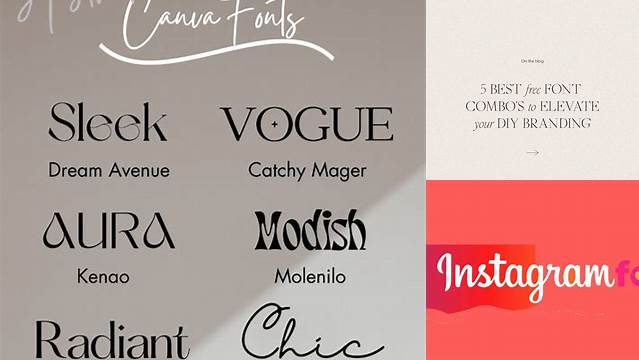
Classy Fonts For Instagram: Elevate Your Aesthetic
Choosing the right fonts can significantly elevate your Instagram presence. In this article, we’ll explore a variety of classy fonts perfect for enhancing your Instagram aesthetic. Let's dive in, guys!
1. Serif Fonts for an Elegant Instagram Look
When we're talking about an elegant Instagram feed, serif fonts are your go-to guys. These fonts, characterized by their small decorative strokes or 'serifs' at the end of each character, evoke a sense of tradition, sophistication, and timelessness. Using serif fonts isn't just about readability; it's about making a statement. For example, think of fonts like Times New Roman or Georgia. They create an immediate impression of class and professionalism. A well-chosen serif font can set the tone for your entire profile, signaling to your audience that you value quality and attention to detail.
Incorporating serif fonts into your Instagram content can be incredibly versatile. Use them in your profile bio to convey authority and trustworthiness. Imagine a fashion brand using a refined serif font to present its brand story. Or maybe a consultant using it to highlight key credentials. They are perfect for overlaying on images to add a touch of elegance to your posts. When you're designing stories, try using a serif font for headlines or to emphasize crucial information. By doing so, you're not just conveying text; you're conveying a feeling of subtlety and refinement that resonates with your followers. Experiment with different weights and sizes to find the perfect balance that complements your visual content and reinforces your brand's identity.
2. Sans-Serif Fonts for a Modern Instagram Vibe
If you're aiming for a modern and clean Instagram aesthetic, sans-serif fonts are definitely your best bet. Unlike serif fonts, sans-serif fonts lack those decorative strokes, resulting in a sleeker, more contemporary appearance. Think of fonts like Helvetica, Arial, or Open Sans – they're straightforward, legible, and incredibly versatile. Using sans-serif fonts can give your profile a fresh and approachable vibe, making it ideal for brands and influencers who want to connect with a younger or more tech-savvy audience.
Integrating sans-serif fonts into your Instagram content is super easy. Use them in your captions to keep your message clear and concise. A sans-serif font can ensure that your text is easy to read and visually appealing, whether you're sharing a personal anecdote or promoting a product. In your stories, opt for sans-serif fonts to create a sense of immediacy and modernity. The clean lines of these fonts work well with dynamic visuals, making your stories pop and capturing your followers' attention. Moreover, sans-serif fonts are fantastic for creating graphics and quotes. Their simplicity ensures that your message stands out without being overshadowed by unnecessary ornamentation. By thoughtfully incorporating sans-serif fonts, you can create a cohesive and contemporary Instagram presence that resonates with your target audience.
3. Script Fonts for a Touch of Instagram Flair
For adding a touch of personality and flair to your Instagram, script fonts are the way to go. These fonts mimic the fluidity of handwriting and can range from elegant and formal to playful and casual. Script fonts are perfect for highlighting special occasions, adding a personal touch to your content, or creating a sense of intimacy with your audience. Just imagine fonts like Brush Script or Pacifico. These give an immediate feeling of being personal and special.
Think about using script fonts to announce a giveaway, share a heartfelt message, or promote a handmade product. However, it's important to use script fonts sparingly. Overusing them can make your content look cluttered or difficult to read. Instead, use them to emphasize key words or phrases and to add a subtle touch of elegance to your overall design. Also, remember to choose script fonts that complement your brand's aesthetic. A formal script font might be perfect for a luxury brand, while a casual script font might be better suited for a lifestyle blogger. By carefully selecting and incorporating script fonts, you can infuse your Instagram content with personality and charm, making it more engaging and memorable for your followers.
4. Display Fonts to Make Your Instagram Pop
When you really want to make your Instagram pop, display fonts are your secret weapon, guys. These fonts are designed to be eye-catching and attention-grabbing, perfect for headlines, logos, and other design elements where you want to make a bold statement. Display fonts come in a wide variety of styles, from retro and funky to modern and abstract, allowing you to express your brand's unique personality and stand out from the crowd.
Consider using display fonts to announce a new product launch, promote a special event, or create eye-catching graphics for your Instagram feed. A well-chosen display font can instantly grab your followers' attention and communicate your message in a memorable way. However, like script fonts, it's important to use display fonts sparingly. Overusing them can make your content look cluttered or overwhelming. Instead, use them strategically to highlight key messages and to create a sense of visual interest. Also, be sure to choose display fonts that are legible and easy to read, even at smaller sizes. The goal is to attract attention, not to confuse your audience. By carefully selecting and incorporating display fonts, you can create a visually stunning Instagram presence that captures your followers' imagination and leaves a lasting impression.
5. Combining Fonts for a Dynamic Instagram Feed
To create a truly dynamic and visually appealing Instagram feed, try combining different fonts. This technique can add depth and interest to your content, helping you to create a unique and memorable brand identity. The key to combining fonts successfully is to choose fonts that complement each other without clashing. For example, you might pair a serif font with a sans-serif font, or a script font with a more neutral font.
Experiment with different combinations to see what works best for your brand. You can use one font for headlines, another for body text, and a third for captions or call-to-actions. Just be sure to maintain a consistent visual hierarchy, using font size, weight, and color to guide your followers' eyes and to emphasize key messages. Also, don't be afraid to break the rules and to try something unexpected. The best font combinations are often those that defy convention and reflect your brand's unique personality. By mastering the art of font pairing, you can create an Instagram feed that is both visually stunning and highly effective at communicating your message.
6. Font Psychology and Your Instagram Brand
Ever thought about how the fonts you pick can actually affect how people see your brand? It's all about font psychology, guys! Different fonts evoke different emotions and associations, so choosing the right ones can help you to communicate your brand's personality and values. For example, serif fonts often convey a sense of tradition, authority, and trustworthiness, while sans-serif fonts tend to be associated with modernity, simplicity, and clarity. Script fonts can evoke feelings of elegance, creativity, and personalization, while display fonts are all about grabbing attention and making a statement.
Consider what emotions and associations you want your brand to evoke, and then choose fonts that align with those goals. If you want to be seen as a reliable and established brand, a serif font might be a good choice. If you want to project a more modern and innovative image, a sans-serif font might be better. Or, if you want to add a touch of personality and flair, a script font could be just what you need. By understanding the psychology of fonts, you can make informed decisions about your Instagram branding and create a cohesive and compelling visual identity that resonates with your target audience.
7. Free Font Resources for Instagram Graphics
Finding the perfect fonts for your Instagram graphics doesn't have to break the bank. There are tons of free font resources available online that offer a wide variety of high-quality fonts for commercial and personal use. Websites like Google Fonts, Font Squirrel, and DaFont are treasure troves of free fonts, with thousands of options to choose from. These sites allow you to browse fonts by category, style, and license, making it easy to find the perfect font for your project.
Before you download a font, be sure to check the license to make sure that it's okay to use it for your intended purpose. Some fonts are free for personal use only, while others are free for commercial use as well. Also, be aware that the quality of free fonts can vary. Some free fonts are professionally designed and meticulously crafted, while others are amateurish or poorly made. Take the time to preview the font and to test it out in your designs before you commit to using it. With a little bit of research, you can find amazing free fonts that will elevate your Instagram graphics without costing you a dime.
8. Paid Font Options for Professional Instagram Branding
If you're serious about your Instagram branding and want to invest in premium fonts, there are plenty of paid options available. Paid fonts typically offer higher quality, more features, and broader licensing options than free fonts. Websites like MyFonts, Adobe Fonts, and Creative Market are great places to find professional-grade fonts for your Instagram graphics.
When you're choosing a paid font, consider your budget, your brand's aesthetic, and your specific needs. Paid fonts can range in price from a few dollars to hundreds of dollars, so it's important to set a budget before you start shopping. Also, be sure to choose fonts that align with your brand's personality and values. A professional-grade font can make a big difference in the overall look and feel of your Instagram content, helping you to create a polished and sophisticated brand image.
9. Font Licensing: What You Need to Know for Instagram
Before you use a font in your Instagram graphics, it's important to understand font licensing. Font licensing determines how you're allowed to use a font, including whether you can use it for commercial purposes, whether you can embed it in digital files, and whether you can modify it. Failing to comply with font licensing can result in legal penalties, so it's crucial to do your research and to make sure that you're using fonts legally.
Most free fonts come with a license that allows you to use them for personal and commercial purposes, but there may be restrictions on how you can use them. Some free fonts, for example, may not allow you to embed them in digital files or to modify them. Paid fonts typically come with more flexible licensing options, but it's still important to read the fine print and to make sure that you understand the terms of the license. When in doubt, it's always best to contact the font designer or foundry and to ask for clarification.
10. Font Size and Readability on Instagram
Choosing the right font is only half the battle. You also need to consider font size and readability. If your font is too small or too difficult to read, your followers will have a hard time engaging with your content. Aim for a font size that is large enough to be easily read on a mobile device, but not so large that it overwhelms the design. Also, choose fonts that are legible and easy to read, even at smaller sizes. Avoid fonts with overly intricate or decorative designs, as these can be difficult to read on a small screen.
11. Kerning and Leading for Perfect Instagram Typography
Kerning and leading are two important aspects of typography that can significantly impact the readability and aesthetics of your Instagram graphics. Kerning refers to the spacing between individual letters, while leading refers to the spacing between lines of text. Adjusting the kerning and leading can help you to create a more balanced and visually appealing design.
12. Color Contrast for Instagram Font Legibility
Color contrast is essential for ensuring that your Instagram fonts are legible. Choose font colors that contrast strongly with the background color. Dark text on a light background is generally easier to read than light text on a dark background. Avoid using colors that are too similar, as this can make your text difficult to see.
13. Using Fonts to Reflect Your Instagram Brand Personality
The fonts you choose should reflect your Instagram brand personality. If your brand is playful and fun, choose fonts that are whimsical and lighthearted. If your brand is sophisticated and elegant, choose fonts that are refined and classic. The fonts you use should be consistent with your overall brand image and messaging.
14. The Best Fonts for Instagram Stories
When it comes to Instagram Stories, readability and visual appeal are key. Choose fonts that are easy to read on a small screen and that complement the visual content of your story. Sans-serif fonts are often a good choice for Instagram Stories, as they tend to be clean and legible.
15. Fonts to Avoid on Instagram (and Why)
Not all fonts are created equal. Some fonts are simply not well-suited for Instagram. Avoid fonts that are too difficult to read, too distracting, or too overused. Also, be wary of fonts that are poorly designed or that look amateurish.
16. How to Upload Custom Fonts to Instagram
While Instagram has a limited selection of built-in fonts, there are ways to upload custom fonts to the platform. This can allow you to create a truly unique and branded Instagram presence.
17. Font Generators for Creating Unique Instagram Captions
Font generators can be a fun way to add a unique touch to your Instagram captions. These tools allow you to create stylized text using a variety of different fonts and symbols.
18. Matching Fonts to Instagram Filter Aesthetics
Consider how your fonts will look with different Instagram filters. Some fonts may look better with certain filters than others. Experiment with different combinations to find the perfect match.
19. Typography Trends on Instagram to Watch Out For
Typography trends on Instagram are constantly evolving. Stay up-to-date on the latest trends to keep your Instagram graphics fresh and modern.
20. Accessibility Considerations for Instagram Fonts
When choosing fonts for Instagram, it's important to consider accessibility. Choose fonts that are easy to read for people with visual impairments. Avoid using fonts that are too small or that have poor color contrast.
21. Using Emojis with Fonts on Instagram
Emojis can be a great way to add personality and emotion to your Instagram content. Use emojis thoughtfully and sparingly to complement your fonts and to enhance your message.
22. Creating a Font Style Guide for Your Instagram Brand
A font style guide can help you to maintain a consistent visual identity on Instagram. Define which fonts you will use for different purposes, such as headlines, body text, and captions.
23. Analyzing Competitor Font Choices on Instagram
Take a look at what fonts your competitors are using on Instagram. This can give you ideas and inspiration for your own font choices.
24. The Impact of Fonts on Instagram Engagement
The fonts you choose can have a significant impact on Instagram engagement. Fonts that are visually appealing and easy to read are more likely to capture your followers' attention and encourage them to interact with your content.
25. How to Test Font Combinations for Instagram
Before you commit to a particular font combination, be sure to test it out on Instagram. See how it looks on different devices and with different types of content.
26. Using Font Animations on Instagram Stories
Font animations can add a dynamic and engaging element to your Instagram Stories. Experiment with different animation styles to see what works best for your brand.
27. The Role of Fonts in Instagram Visual Hierarchy
Fonts play a crucial role in creating visual hierarchy on Instagram. Use font size, weight, and color to guide your followers' eyes and to emphasize key messages.
28. Avoiding Font Clutter on Your Instagram Feed
Font clutter can make your Instagram feed look messy and overwhelming. Use fonts sparingly and strategically to create a clean and visually appealing design.
29. Tools for Identifying Fonts Used on Instagram
If you see a font on Instagram that you like, there are tools that can help you to identify it. These tools can analyze images and suggest fonts that are similar to the one you're looking for.
30. Future Trends in Instagram Typography
The world of Instagram typography is constantly evolving. Stay informed about future trends to keep your content fresh, engaging, and on-brand.